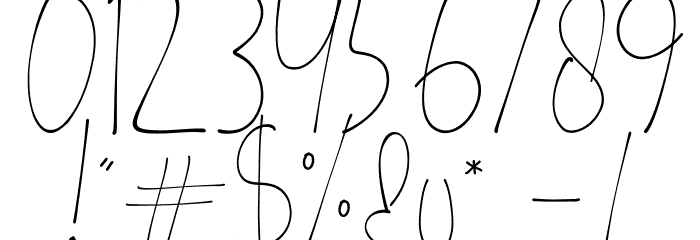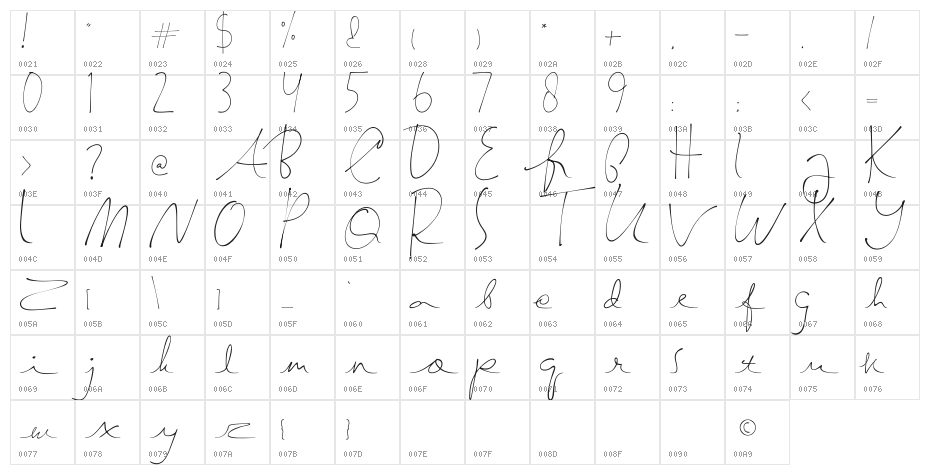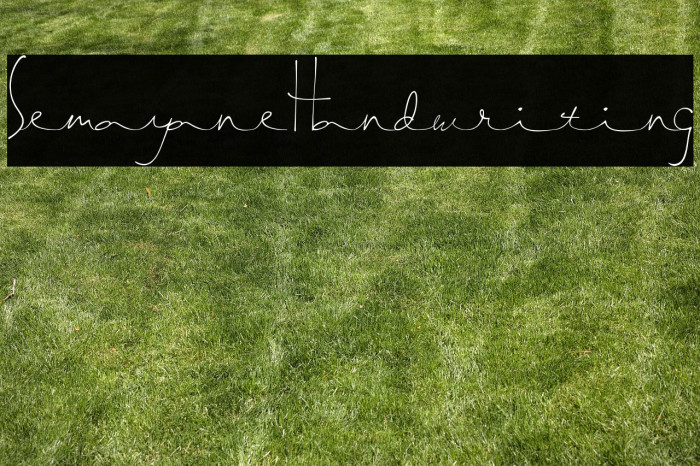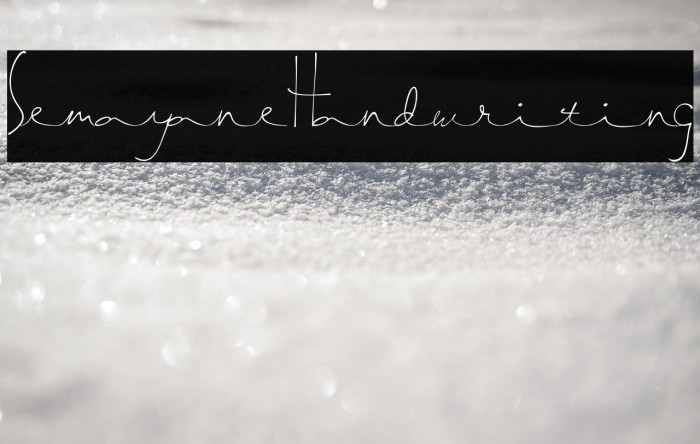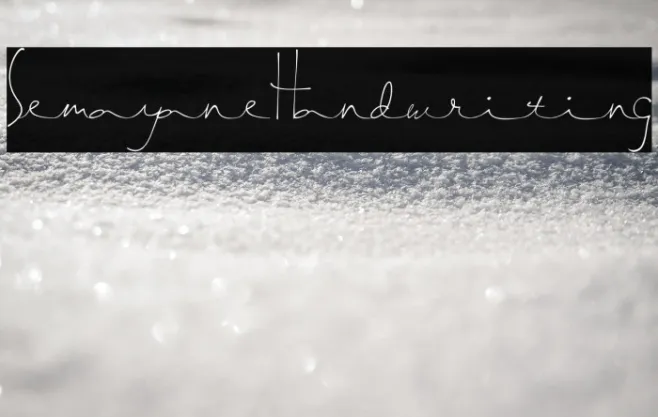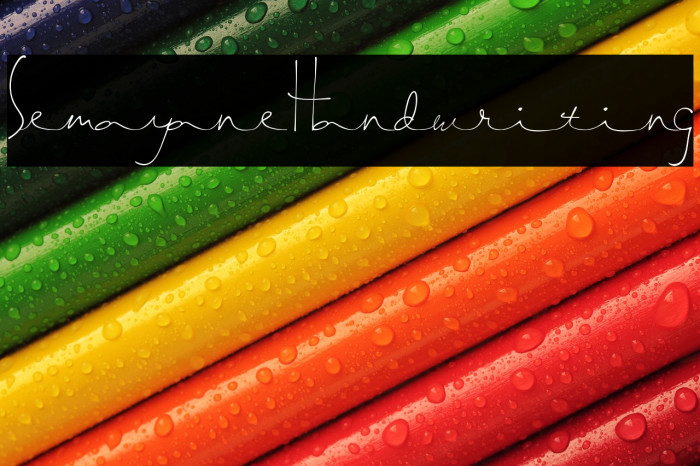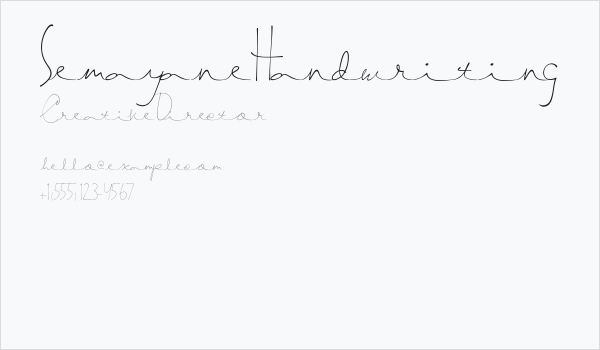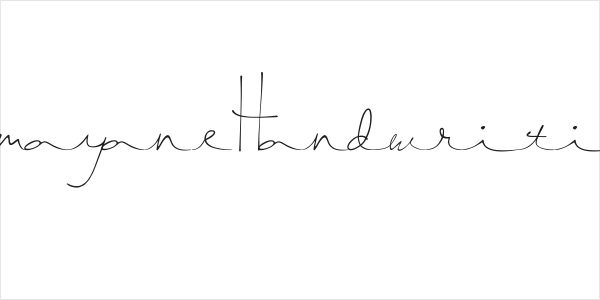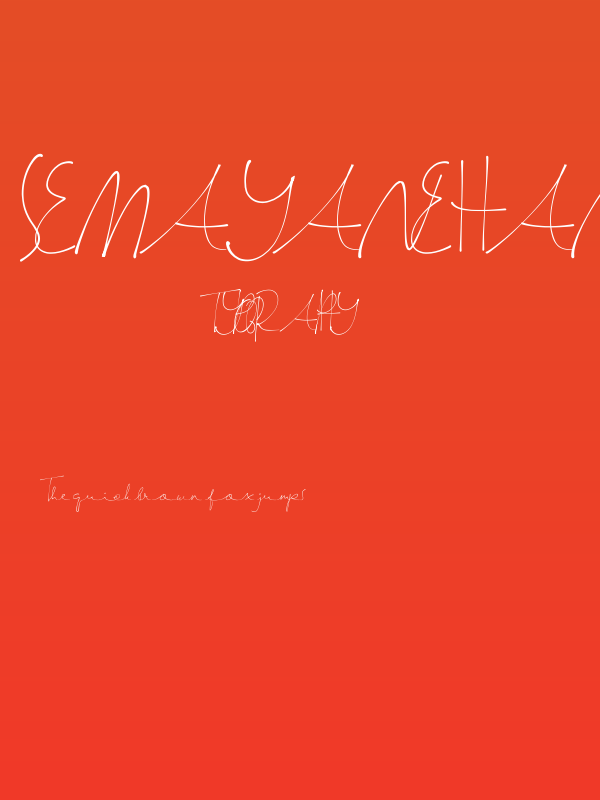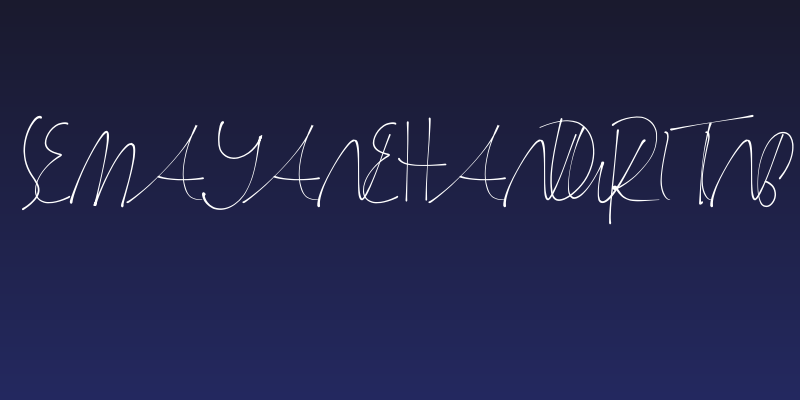
SemayaneHandwriting Font
SemayaneHandwriting Description
This font features a distinctive handwritten style that exudes a casual and artistic flair. The letters are characterized by their fluid and continuous strokes, giving the impression of being penned with a quick, confident hand. Uppercase letters are bold and expressive, while lowercase letters maintain a consistent flow, enhancing the font's cohesive look. The numerals and special characters follow the same handwritten aesthetic, ensuring uniformity across all elements. The overall appearance is both elegant and approachable, making it suitable for creative and personal projects.
| Overall Style | Casual, Artistic |
| Use Case | Logos, Invitations, Personal notes |
| Proposed Projects | Ideal for personal notes, creative projects, invitations, and artistic branding. |